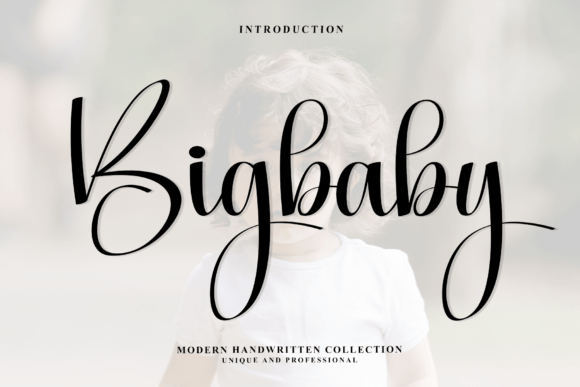
The Elegance of Bigbaby Font: A Designer’s New Best Friend
I still remember the last time I was working on a luxury wedding stationery project, and I was on the hunt for the perfect font. My client wanted something elegant, sophisticated, and truly unique. I scoured the internet, tried out countless fonts, but nothing seemed quite right. That was until I stumbled upon Bigbaby Font. ✨
Bigbaby is an elegant and fluid handwritten script font that captures the essence of a modern, sophisticated typeface. It features graceful, high-contrast strokes with sweeping loops and fine, tapering terminals that give the letterforms a rhythmic and natural handwritten flow.
What I Love About Bigbaby Font
So, what makes Bigbaby Font so special? Here are a few things that I absolutely love:
- ✨ Elegant and fluid design: Bigbaby Font has a beautiful, cursive feel that’s perfect for luxury brands and high-end designs.
- ✅ High-contrast strokes: The font’s high-contrast strokes give it a sense of drama and sophistication.
- ✅ Expansive horizontal presence: Bigbaby Font has a wide, expansive feel that’s perfect for headings and titles.
- ✅ Delicate connections: The font’s delicate connections between characters add a touch of whimsy and personality.
While Bigbaby Font is an amazing choice for many designs, there are a few small quirks to keep in mind:
- ⚠️ Legibility at small sizes: Like many script fonts, Bigbaby can be a bit tricky to read at small sizes. Make sure to use it at a large enough size to ensure legibility.
- 🤔 Overuse of swashes: While Bigbaby Font has some beautiful swashes and stylistic alternates, it’s easy to overdo it. Use them sparingly to add a touch of elegance to your design.
Bigbaby Font was designed with the modern luxury brand in mind. Its creator, a talented type designer, was inspired by the elegant handwriting of high-end fashion brands and luxury wedding stationery. The result is a font that’s both sophisticated and approachable.
| What is Bigbaby Font best used for? | Bigbaby Font is perfect for luxury wedding stationery, intimate event branding, high-end editorial signatures, and sophisticated lifestyle photography overlays. |
| Is Bigbaby Font easy to read? | Bigbaby Font is designed to be elegant and sophisticated, but it can be a bit tricky to read at small sizes. Make sure to use it at a large enough size to ensure legibility. |
| Does Bigbaby Font come with OpenType features? | Yes, Bigbaby Font comes with a range of OpenType features, including swashes, stylistic alternates, and more. |